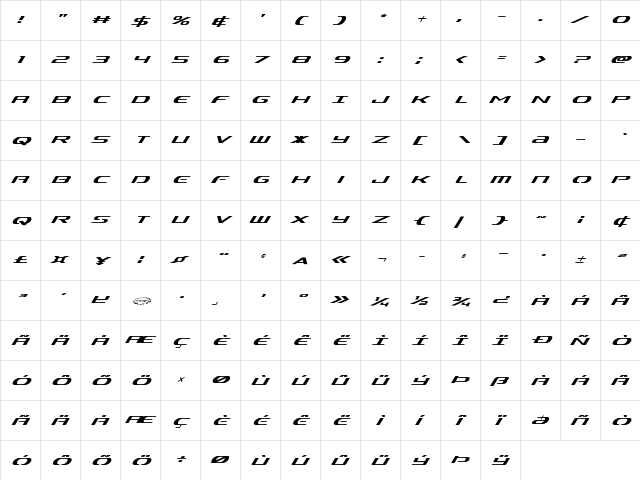
Alpha Men Super-Italic Italic
Design Context for Alpha Men Super-Italic Typeface
Alpha Men Super-Italic offers clean, dependable letterforms without strong stylistic allegiance, making it a practical choice for designers who need flexibility. The dynamic lean of this cut emphasises speed and emphasis in any layout.
Pro Tip: Use Alpha Men Super-Italic for emphasis, pull quotes, and subheadings where its slanted energy can add rhythm to the layout.